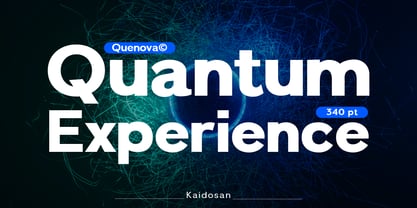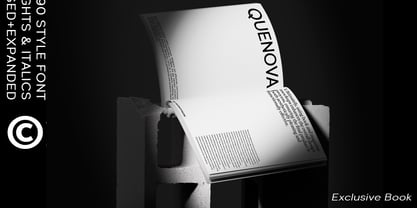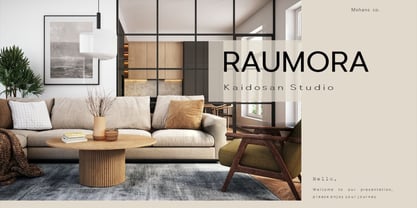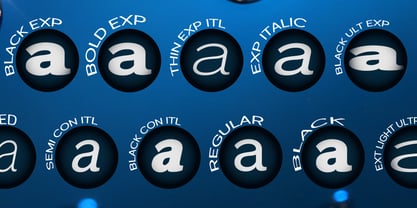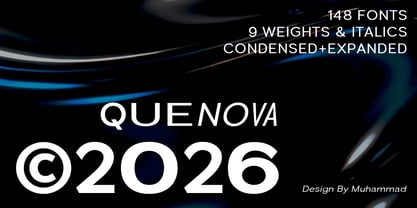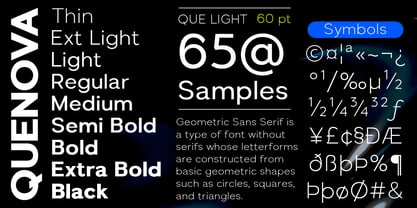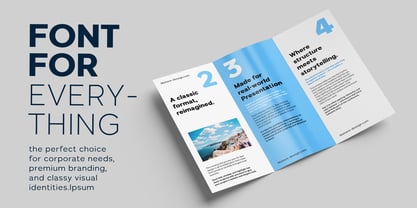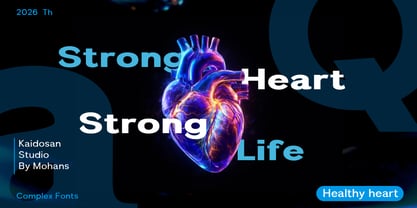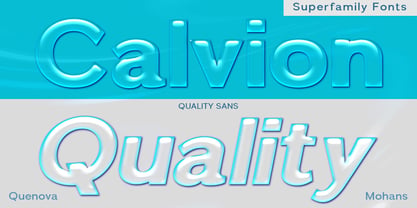
Quenova
by Kaidosan
The Quenova Font Family was designed by Muhammad Ansari and published by Kaidosan. Quenova contains 148 styles and family package options. More about this family
Quenova is a geometric sans serif super family crafted with modern precision and a strong professional character. Combining clean geometric forms with balanced proportions, it delivers a minimalist, confident, and highly versatile appearance suitable for a wide range of design applications. Built as a complete super family, Quenova includes a comprehensive range of weights from Thin to Black, along with perfectly matched italics. Each style has been carefully designed to maintain visual consistency, ensuring smooth and elegant transitions across weights. Equipped with Variable Font technology, Quenova offers maximum flexibility within a single file. Designers can precisely adjust weight and other available axes to suit their creative needs — from ultra-light, sophisticated looks to bold, powerful, and commanding statements. Key Features: Clean and modern geometric construction Stable letterforms with excellent readability Professionally crafted spacing and kerning Ideal for branding, corporate identity, editorial design, UI/UX, packaging, and display headlines Multilingual support and complete symbol set Quenova is perfectly suited for brands that aim to appear premium, modern, and trustworthy, while maintaining a dynamic contemporary edge. Balancing functionality and aesthetics, Quenova is more than just a typeface — it is a complete typographic system designed to become the foundation of a strong visual identity.
Designers: Muhammad Ansari
Foundry: Kaidosan